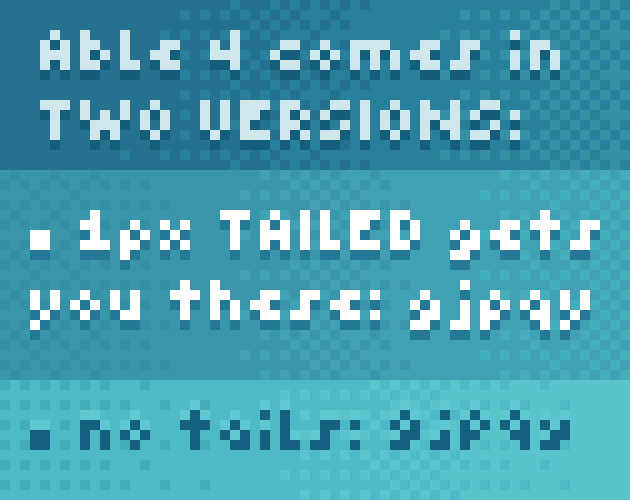
Able 4 is an even smaller version in the Able font family.  With caps only 4px high, it fits in places most other fonts can't!  There's a version with descenders that looks nicer, but requires 1px extra at the bottom; and there's a version without descenders, if you're short on space.
It doesn't support nearly as many languages as Able 5, but it does have Cyrillic and Greek, along with some accented Roman letters.